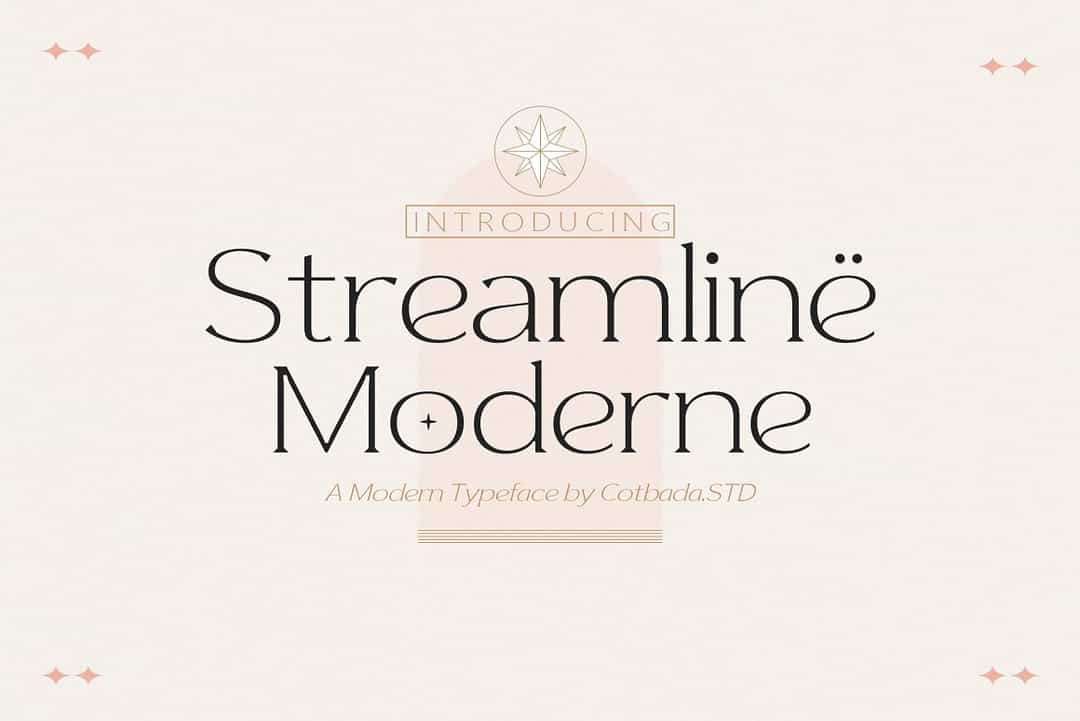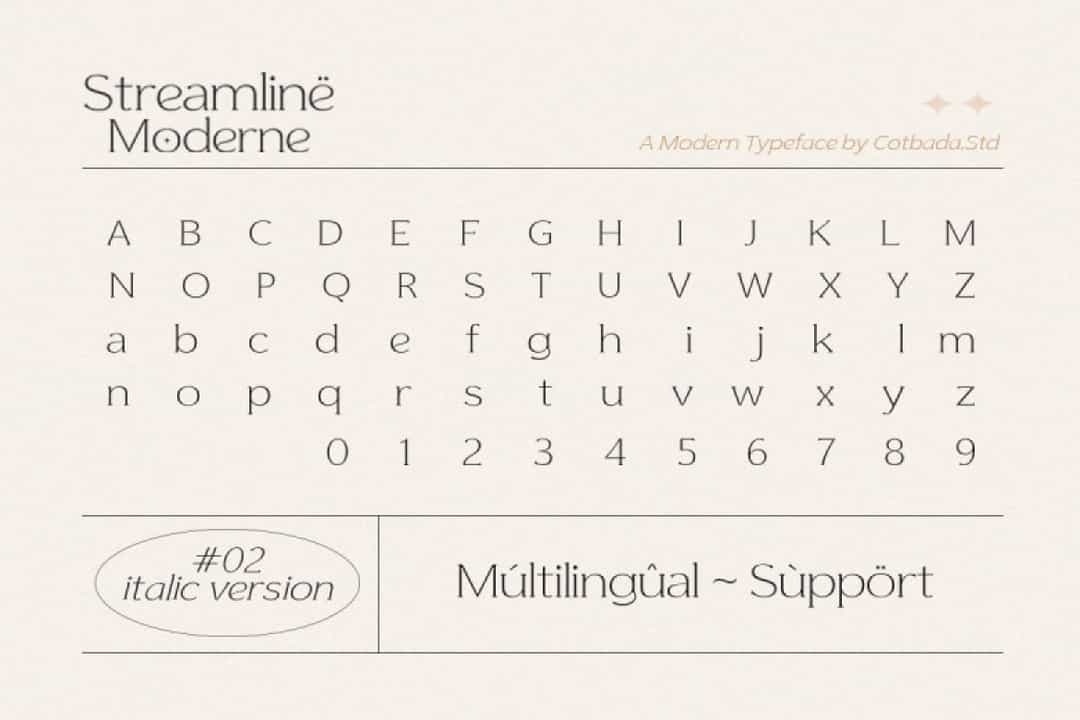
Streamline Moderne is elegant and stylish serif typeface which is perfect for any design project. This elegant font design is perfect for making wedding invitations; it can be used for magazine layout logos; power point templates; quotes and teks; or any graphic that needs a clean looking vintage style. Make something beautiful today with the help of Streamline Moderne as your inspiration!